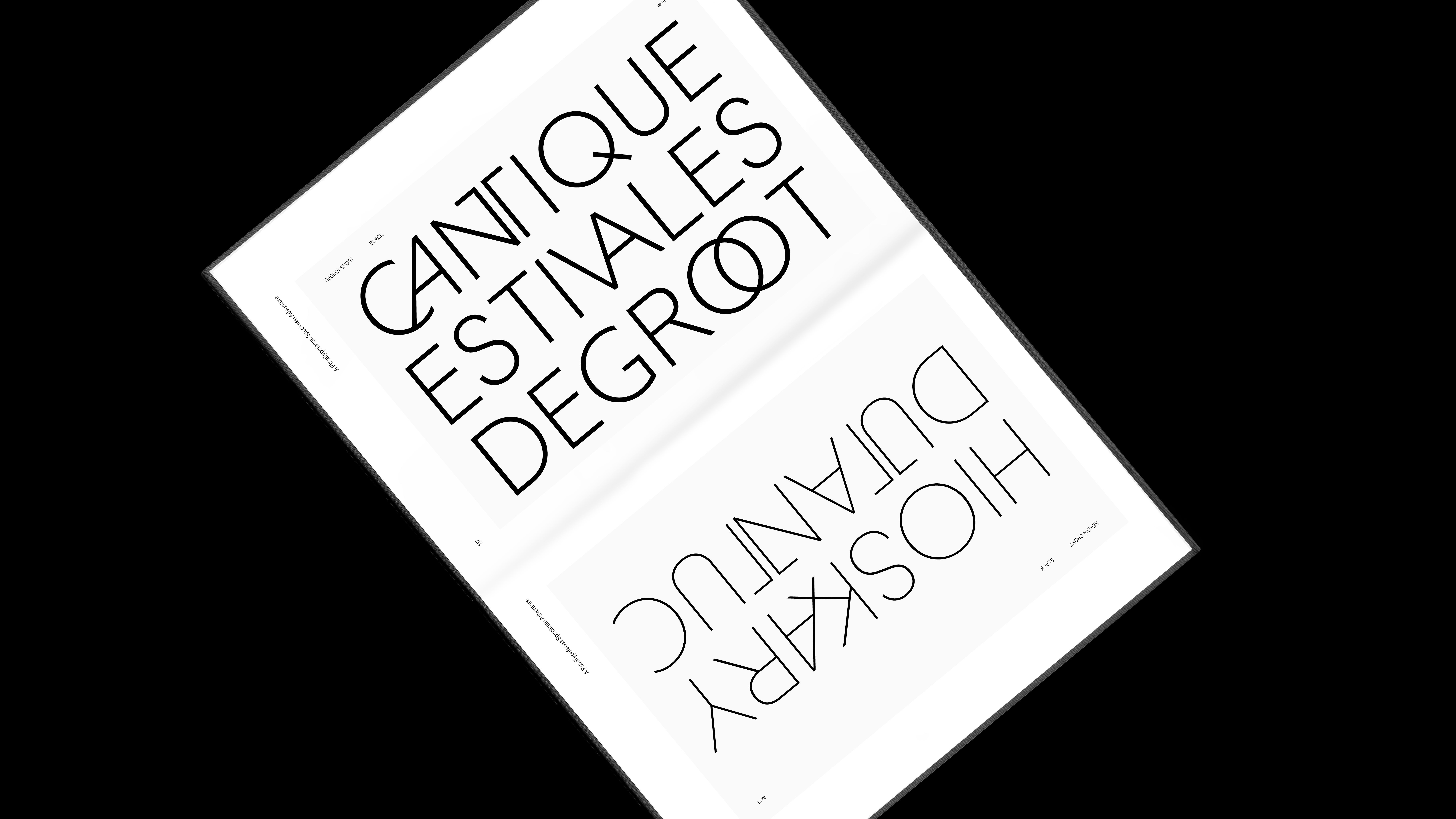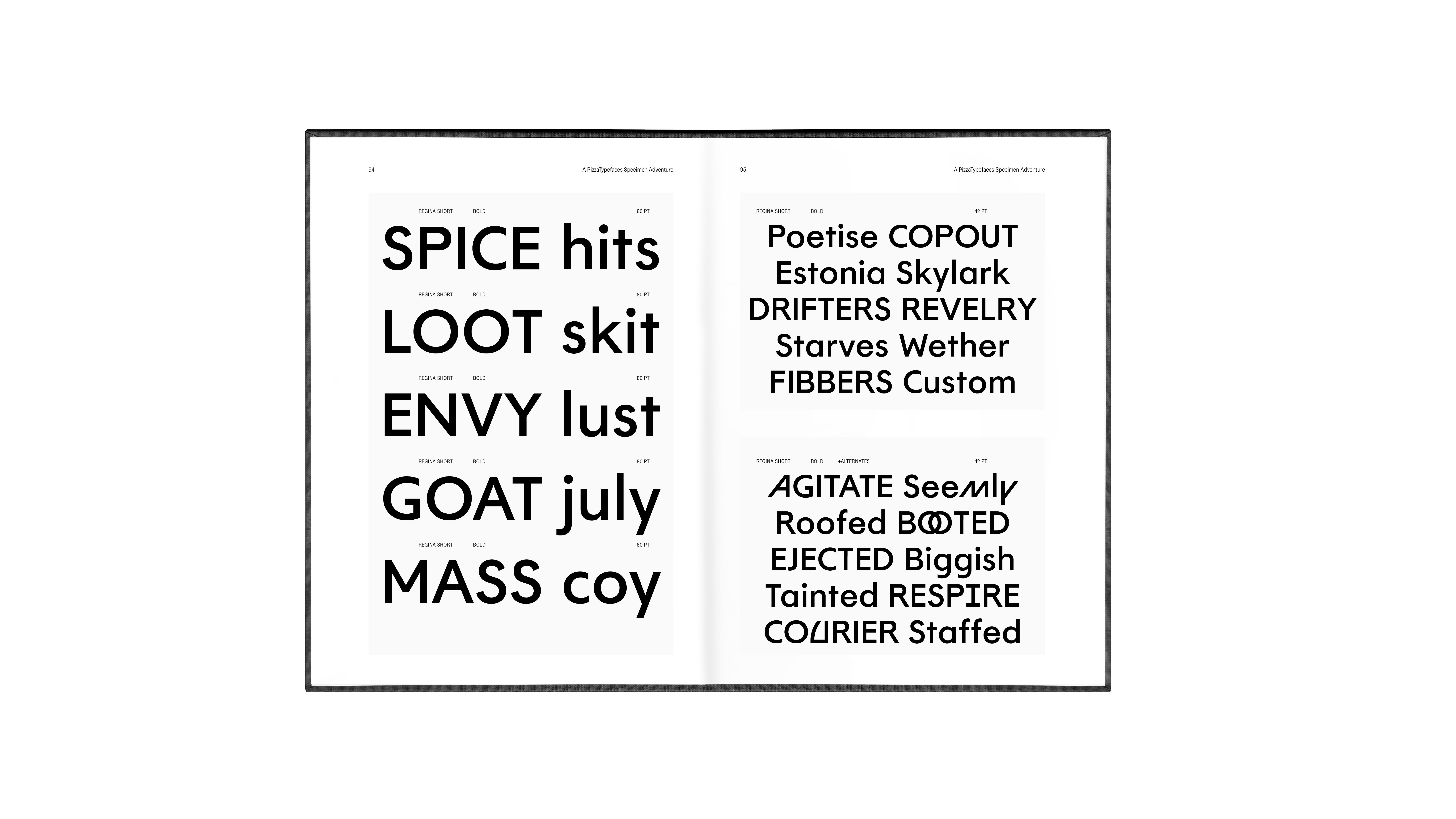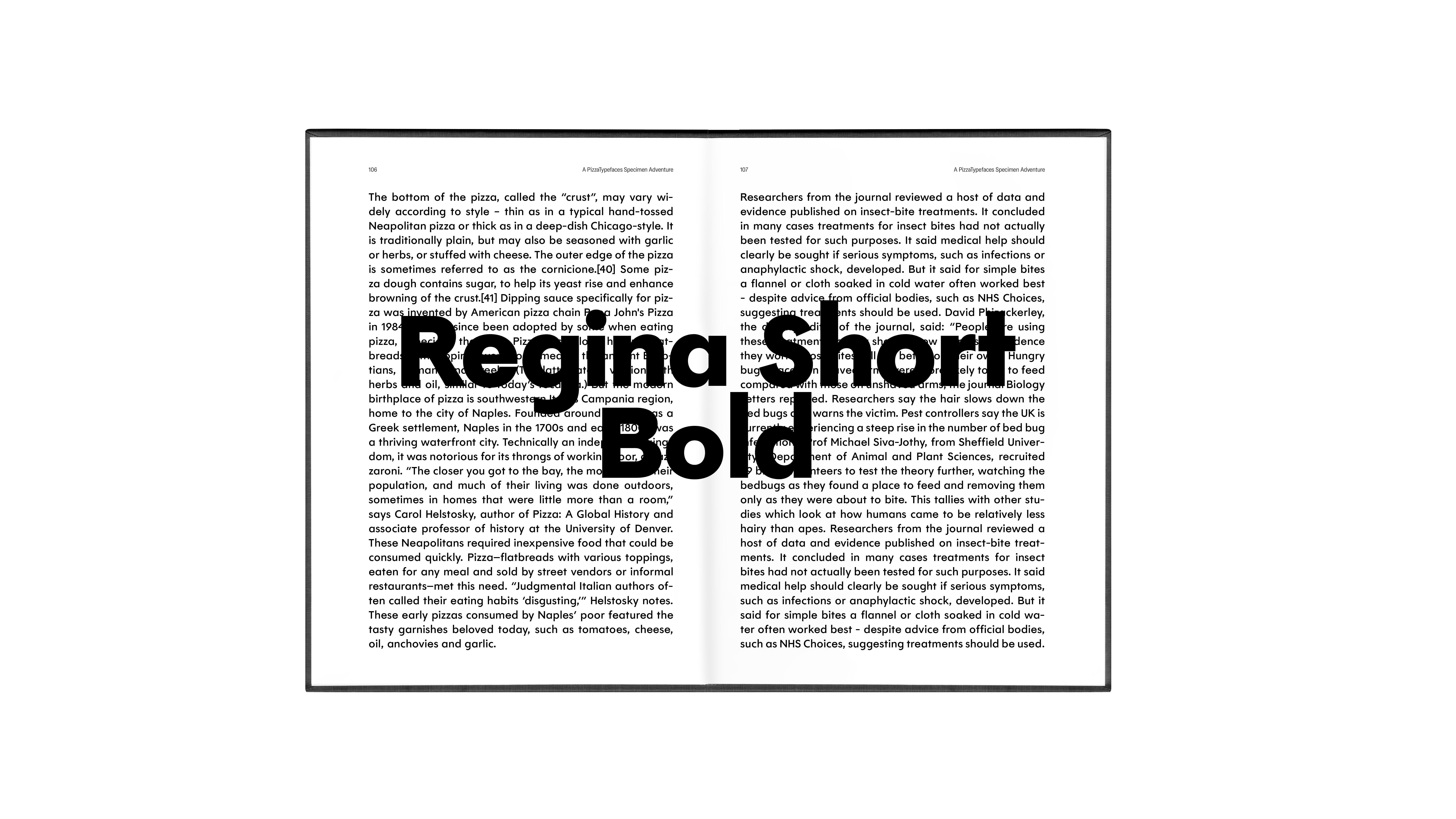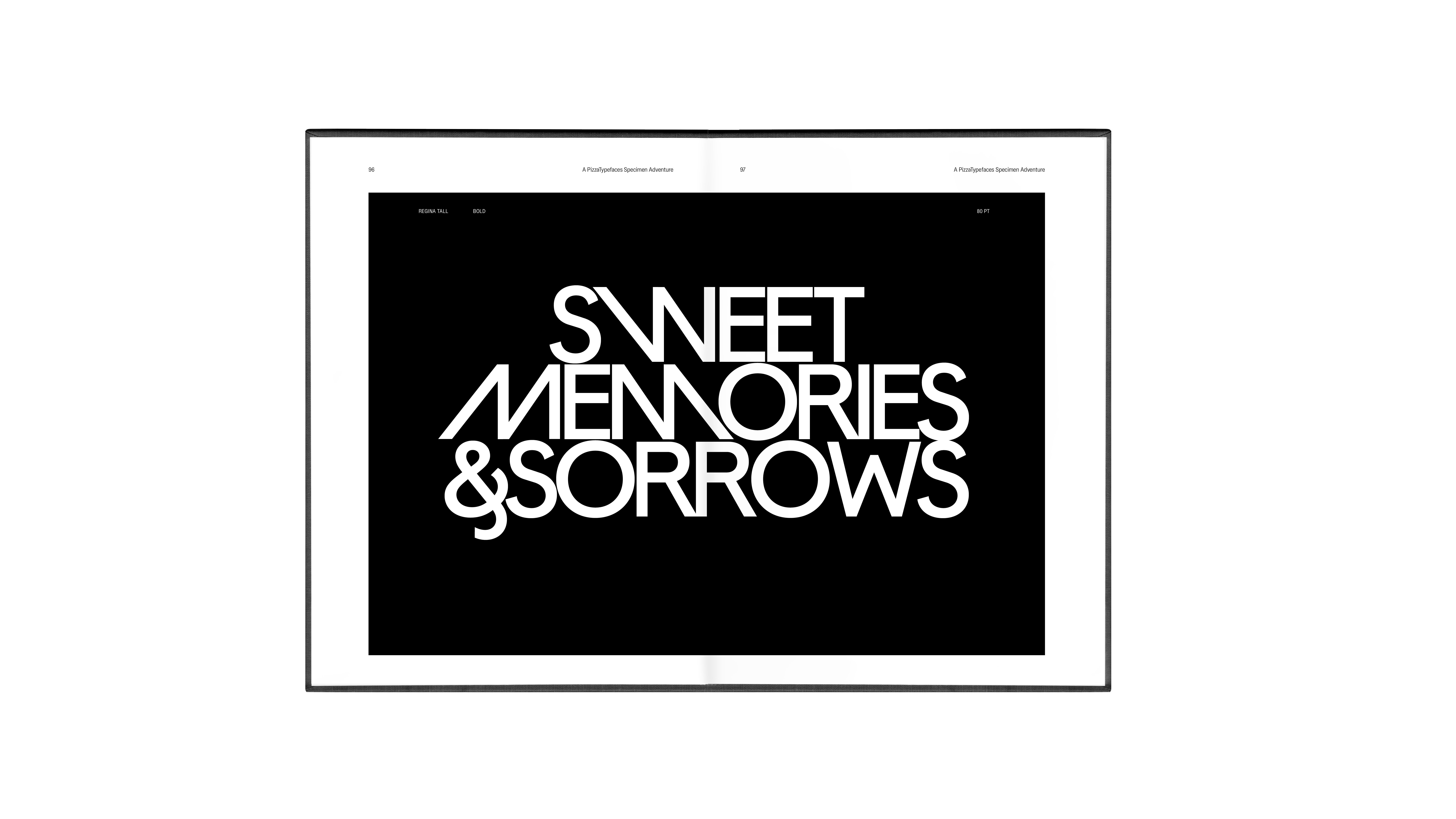
Regina
Regina Typeface is our Futura but, as if the Gothic Avant-Garde had interfered. It offers more than a geometric style font with the Uppercase ligatures and specifics letters form design give it a high elegance.
Regina offers 3 sub families:
- ‘Short’ with balanced x-height and Ascenders height.
- ‘Standard’ with an high x-height and high Ascenders.
- ‘Tall’ for Futura lovers with a low x-height and high Aescenders&Uppercases.
Through all the design space of the font you can have access to, at least, 6 weights and their italics and make your own recipe in blending alternates forms and different font styles from the 3 families. You could also choose the perfect height of Uppercases and Ascenders for your project with our 'Custom Instance' tool ;)
Axis names & Values:
Weight 'wght': Min 100 - Max 900
Ascenders 'grnd': Min 0 - Max 100
Uppercases 'uppr': Min 0 - Max 100
Italic 'ital': Min 0 - Max 1
Design: Adrien Midzic